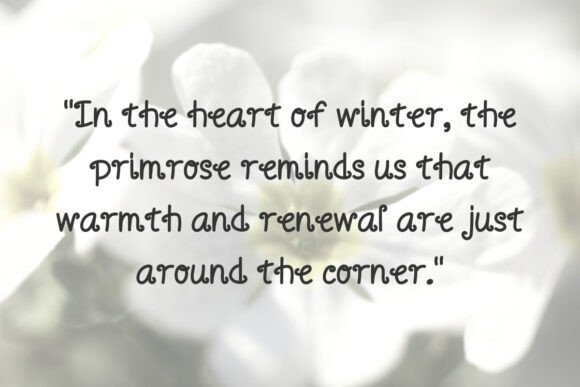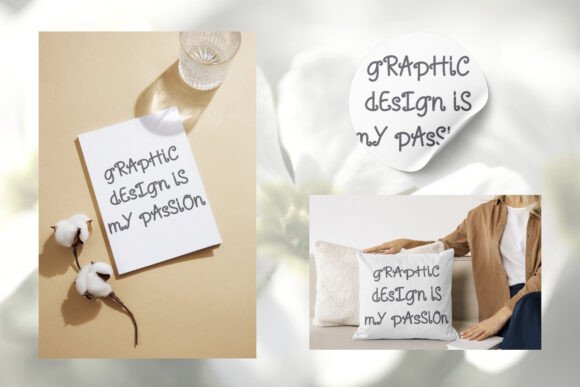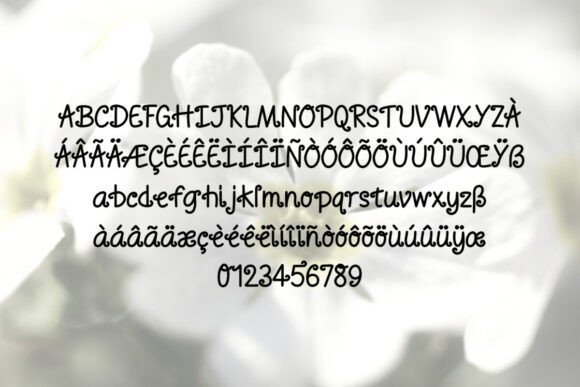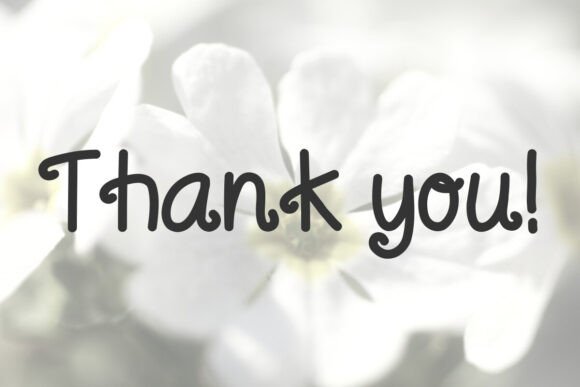
Introduction to Primrose Font
Have you ever been brainstorming ideas for a creative project, only to be stuck on the perfect font to bring your vision to life? I know I have! It’s that moment of frustration when you’re scrolling through font options, searching for the perfect combination of style and functionality. That’s where the Primrose Font comes in – a delightful and playful script font designed to add a touch of whimsy to your designs.
Whether you’re a seasoned designer or a DIY enthusiast, the Primrose Font is a valuable resource that’s sure to elevate your creative projects. Its high-quality design is perfect for a variety of applications, from social media graphics to wedding invitations, and even branding. With a transparent background, you can easily layer it over any image or texture, giving you endless design possibilities.
What sets the Primrose Font apart is its versatility and charm. It’s a must-have for anyone looking to add a unique and stylish edge to their designs. And the best part? It’s available for free download, making it an accessible design resource for anyone looking to take their creativity to the next level.
Key Features of Primrose Font
- High-quality design: Primrose Font is a beautifully crafted typeface perfect for creative projects.
- Transparent background: This font allows for seamless integration with any design element.
- Unique characteristics: Primrose Font features elegant and refined letterforms, ideal for creating a sophisticated design aesthetic.
- Size and resolution: Designed to be scalable, Primrose Font is suitable for use in various sizes and resolutions, from small text to large headings.
- Design versatility: This font is suitable for a wide range of creative projects, including branding, advertising, and editorial design.
Honest Review: Primrose Font
As a designer, I’m always on the lookout for high-quality fonts that can elevate my creative projects. The Primrose Font has been a welcome addition to my design resource library, and I’m excited to share my honest review with you.
- The Primrose Font is a beautiful, elegant script that’s perfect for weddings, invitations, and other special occasions.
- The font is highly customizable, with a transparent background that allows for seamless integration with any design element.
- The font may not be suitable for all types of creative projects, as it’s more suited to formal or elegant designs.
- The transparency of the background may cause issues with certain design elements or color combinations.
Overall, I’m impressed with the Primrose Font. It’s a high-quality design resource that’s perfect for creative projects that require a touch of elegance. While it may have some limitations, I believe it’s a great addition to any designer’s library.
Tips for Getting the Most Out of Primrose Font
To get the most out of the Primrose Font, use it in combination with other design elements to create a unique and eye-catching design. Experiment with different font sizes, colors, and settings to find the perfect look for your project.
The Primrose Font is perfect for a variety of creative projects, including logos, business cards, brochures, and presentations. Its unique style and transparent background make it a versatile font that can be used in a variety of applications.